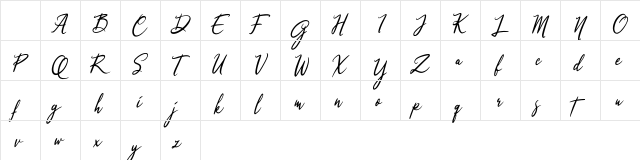
Complete Qinyana Signature glyph index. Displaying only characters natively supported by Qinyana Signature font.
Qinyana Signature is a composed and adaptable typeface that performs quietly and consistently across a wide range of design contexts.